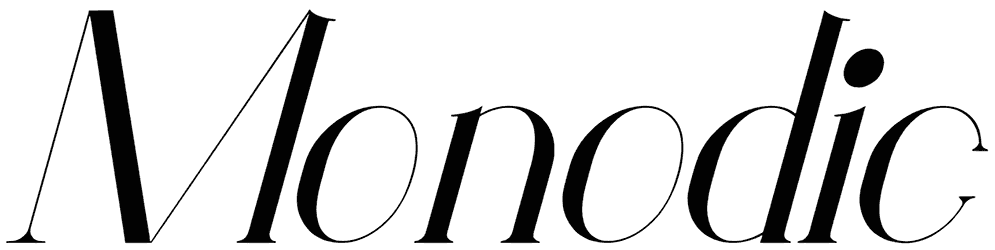
Monodic Font
A minimal design never goes out of date. Here is Monodic, a striking, subtle serif font that comes with two versions and two weights. It’s the best choice to represent your work and make it brighten up.
It doesn’t have any numbers or punctuation; instead, it has good readability. This classic font will be perfect for branding materials, movie posters, newspaper title/body text, logotypes, and business cards.